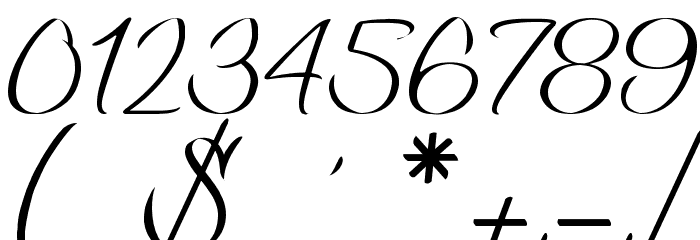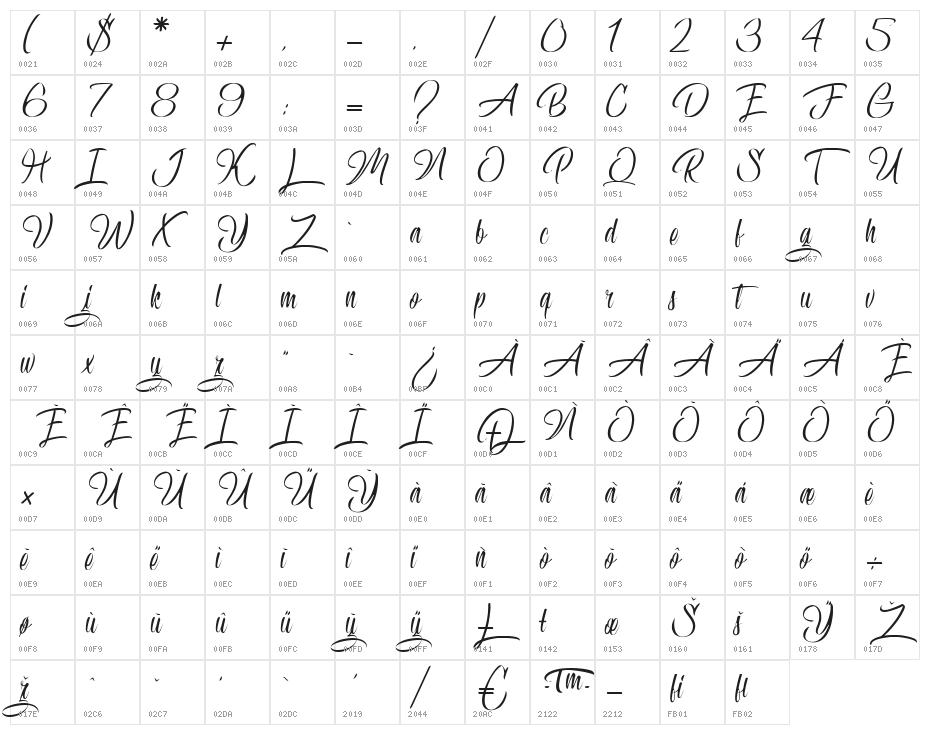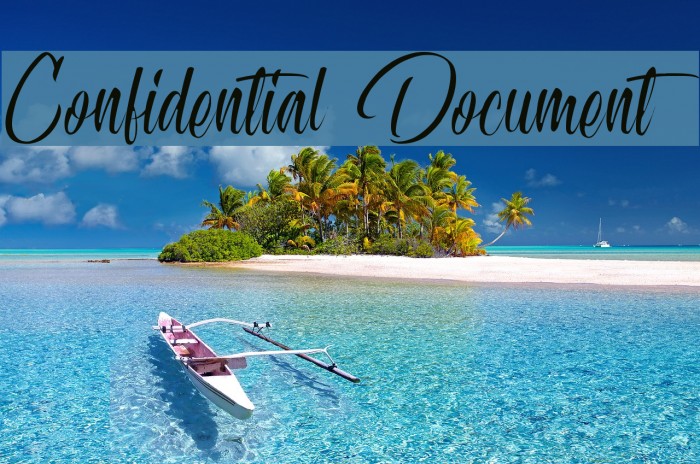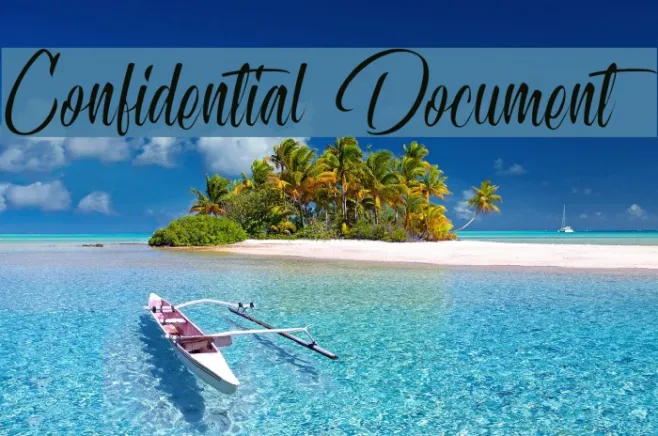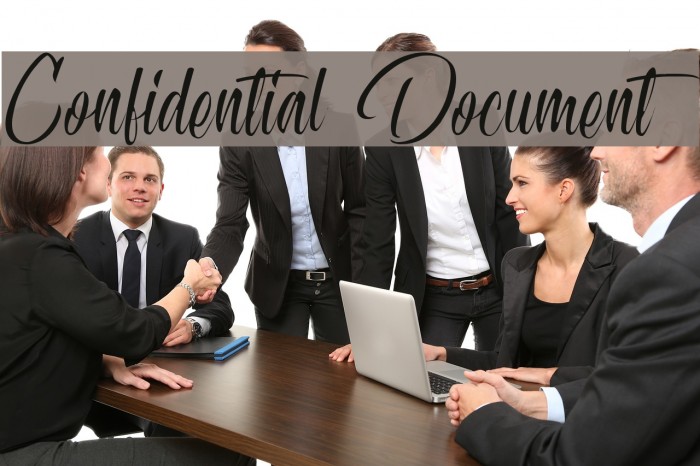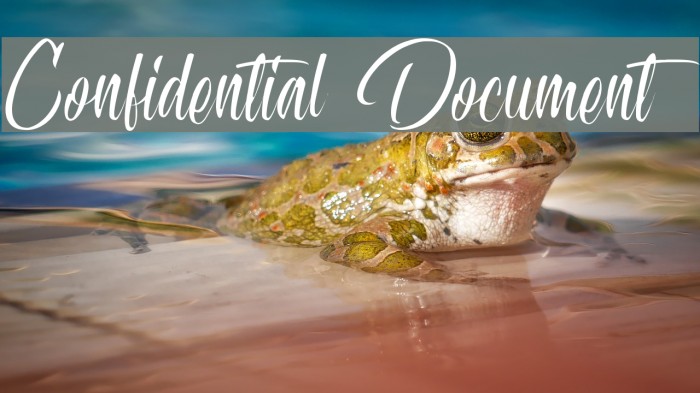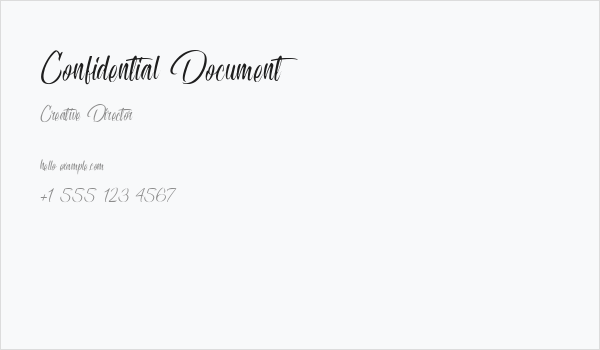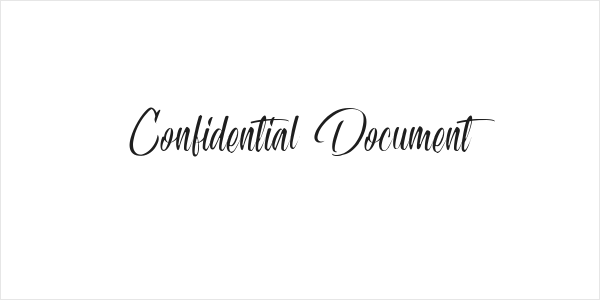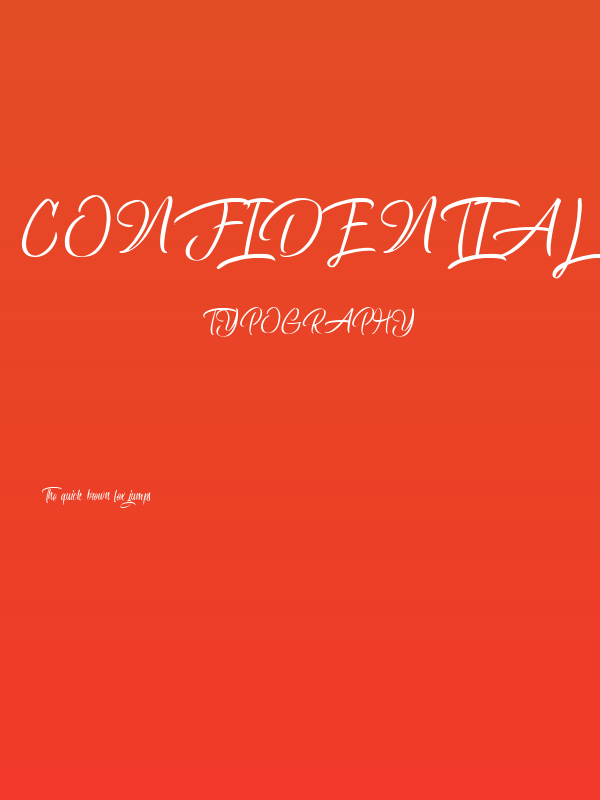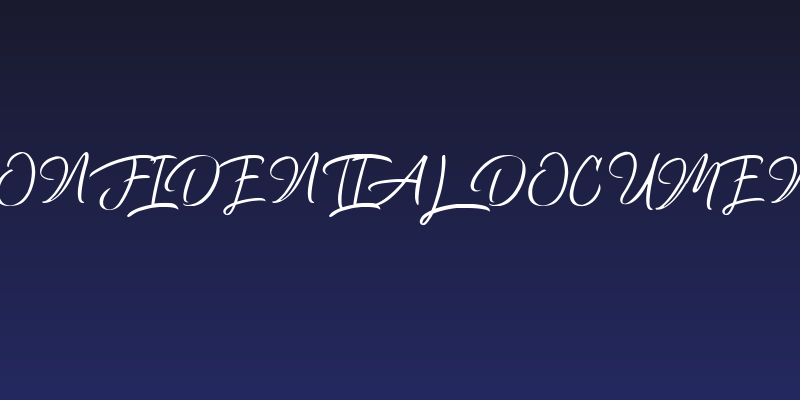
Confidential Document Font
Confidential Document Description
This elegant script font features flowing, cursive letters with a sophisticated and artistic flair. The uppercase letters are gracefully elongated with sweeping curves, while the lowercase letters maintain a consistent fluidity, enhancing readability. The numerals are stylishly designed to complement the overall aesthetic, and the special characters are crafted with intricate details. This font exudes a sense of luxury and refinement, making it ideal for high-end design projects. Its delicate strokes and smooth transitions between characters create a harmonious and visually appealing text presentation.